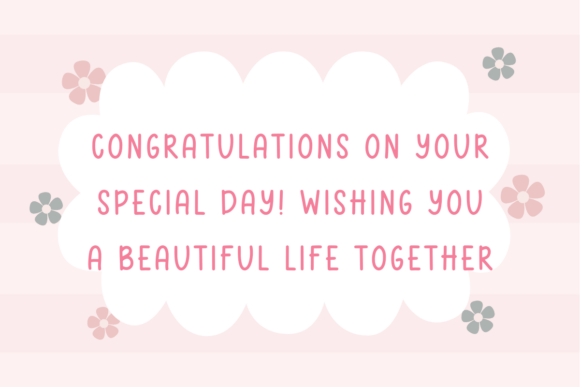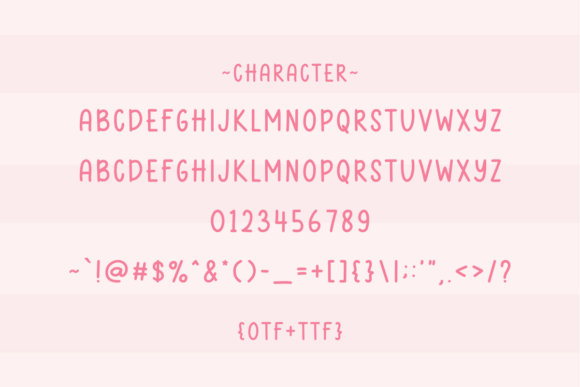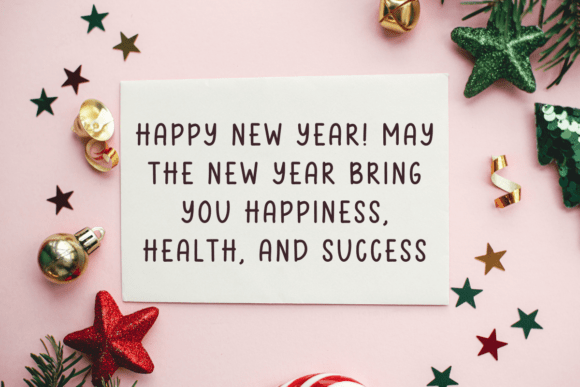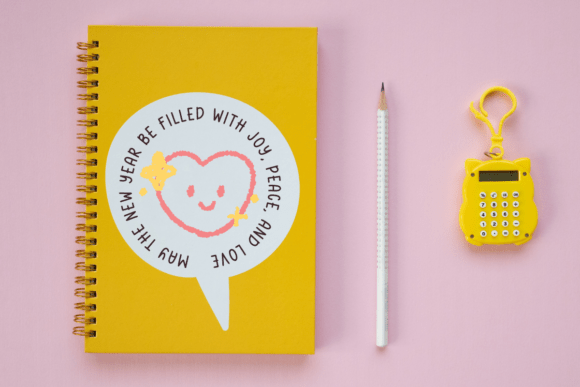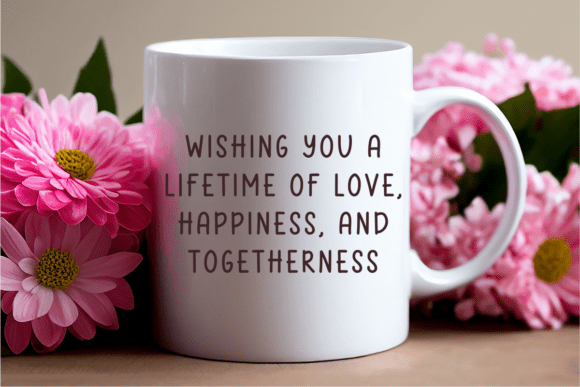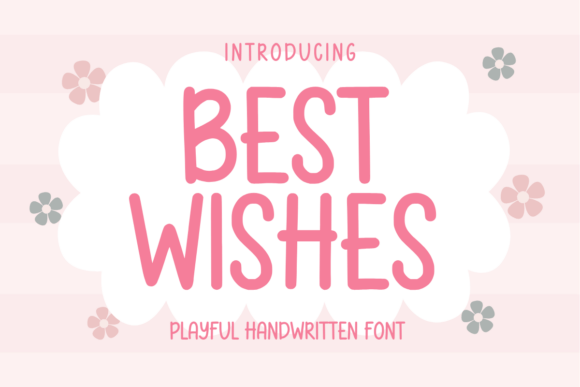
Introducing Best Wishes Font: The Perfect Playful Handwritten Font for Crafters and Designers
Are you a crafter, designer, or maker looking for a font that adds a personal touch to your DIY projects? Look no further than Best Wishes, a playful handwritten font that’s perfect for a variety of creative applications. In this article, we’ll explore the features and benefits of Best Wishes font, and how it can elevate your crafts, planners, KDP, stickers, greeting cards, and more.
What is Best Wishes Font?
Best Wishes is a modern, handwritten font that’s designed to bring a smile to your face. Its cute and friendly style makes it an ideal choice for crafters, designers, and makers who want to add a personal touch to their projects. Whether you’re creating custom stickers, greeting cards, or planners, Best Wishes font is the perfect choice.
Key Features of Best Wishes Font
- Playful and Handwritten Style: Best Wishes font features a playful, handwritten style that’s perfect for adding a personal touch to your projects.
- Versatile: This font is suitable for a wide range of creative applications, including crafts, planners, KDP, stickers, greeting cards, and more.
- Cute and Friendly: The font’s cute and friendly style makes it perfect for creating projects that are fun, playful, and engaging.
- Compatible with Cricut: Best Wishes font is compatible with Cricut, making it easy to use with your cutting machine.
- Ideal for Sublimation: This font is also ideal for sublimation projects, allowing you to create custom products with ease.
Uses for Best Wishes Font
Best Wishes font is incredibly versatile, and can be used for a wide range of creative projects. Here are some ideas to get you started:
- Crafts: Use Best Wishes font to add a personal touch to your crafts, such as handmade cards, gift tags, and more.
- Planners: Add a playful touch to your planners and journals with Best Wishes font.
- KDP: Use Best Wishes font to create custom KDP (Kindle Direct Publishing) covers, journals, and planners.
- Stickers: Create custom stickers with Best Wishes font, perfect for decorating laptops, water bottles, and more.
- Greeting Cards: Use Best Wishes font to create custom greeting cards for special occasions, such as birthdays, holidays, and more.
Why Choose Best Wishes Font?
So why choose Best Wishes font for your creative projects? Here are just a few reasons:
- Unique and Playful Style: Best Wishes font features a unique and playful style that’s sure to stand out.
- Easily Readable: The font is easily readable, making it perfect for creating projects that require text.
- High-Quality: Best Wishes font is a high-quality font that’s designed to produce crisp, clear results.
If you’re looking for a playful handwritten font that’s perfect for crafts, planners, KDP, stickers, greeting cards, and more, look no further than Best Wishes font. With its cute and friendly style, this font is ideal for crafters, designers, and makers who want to add a personal touch to their projects. Whether you’re a seasoned pro or just starting out, Best Wishes font is the perfect choice for your next creative project.